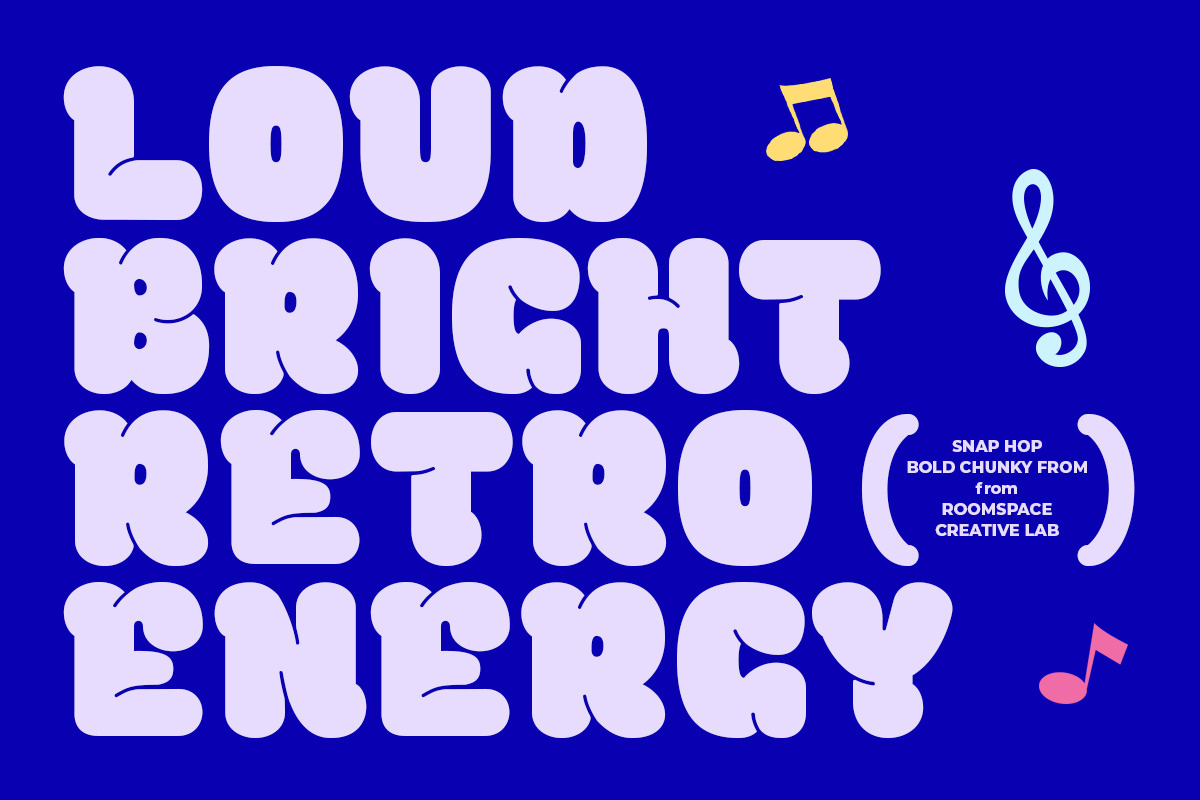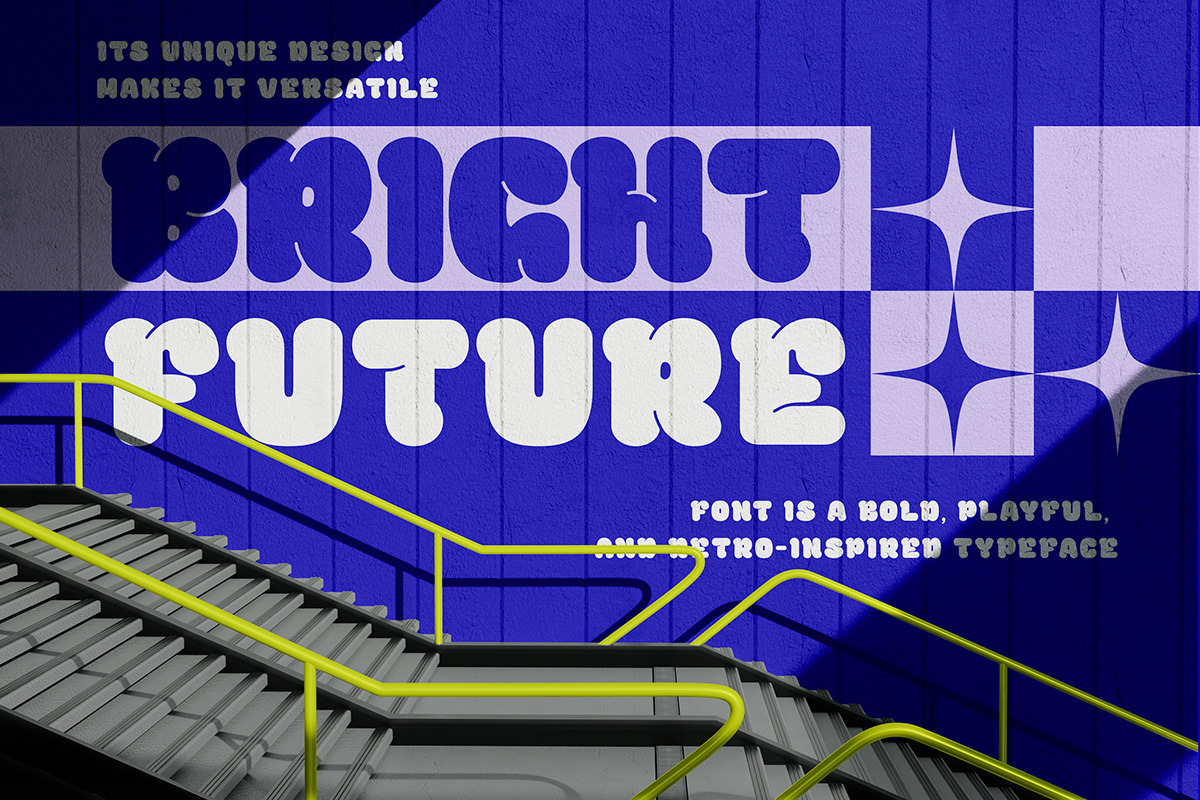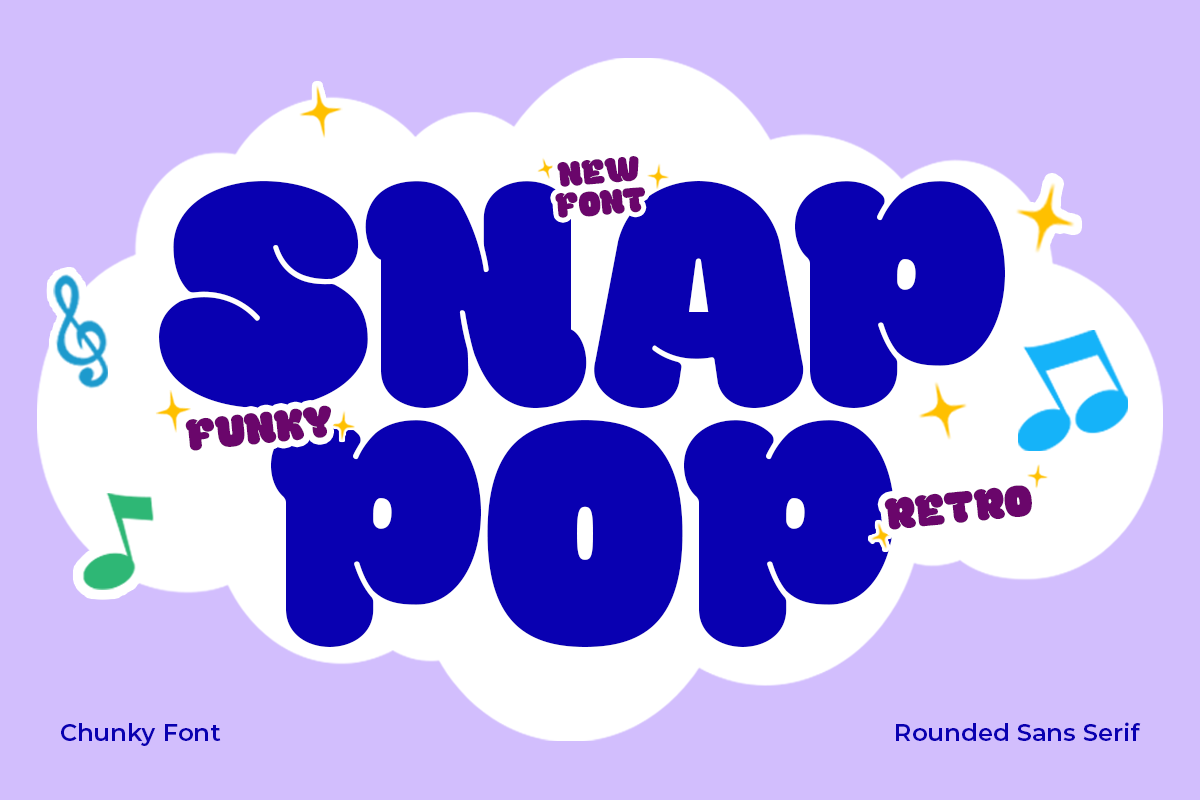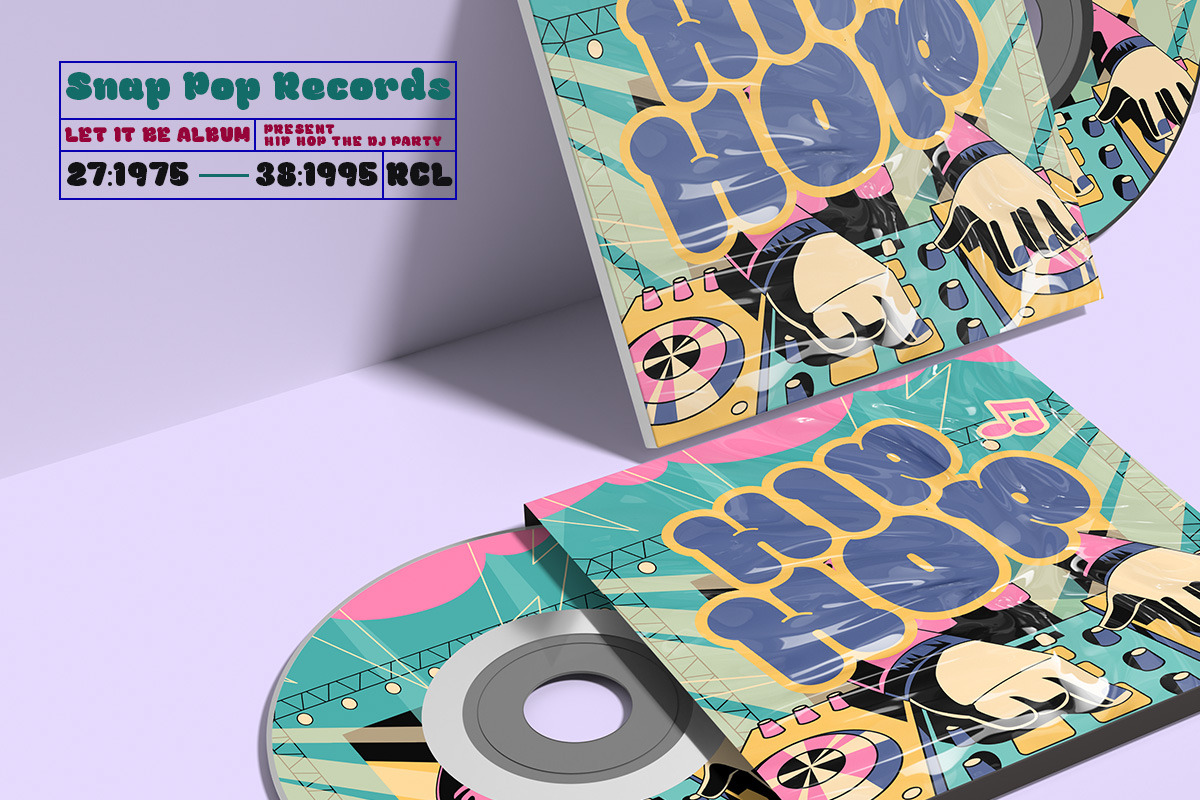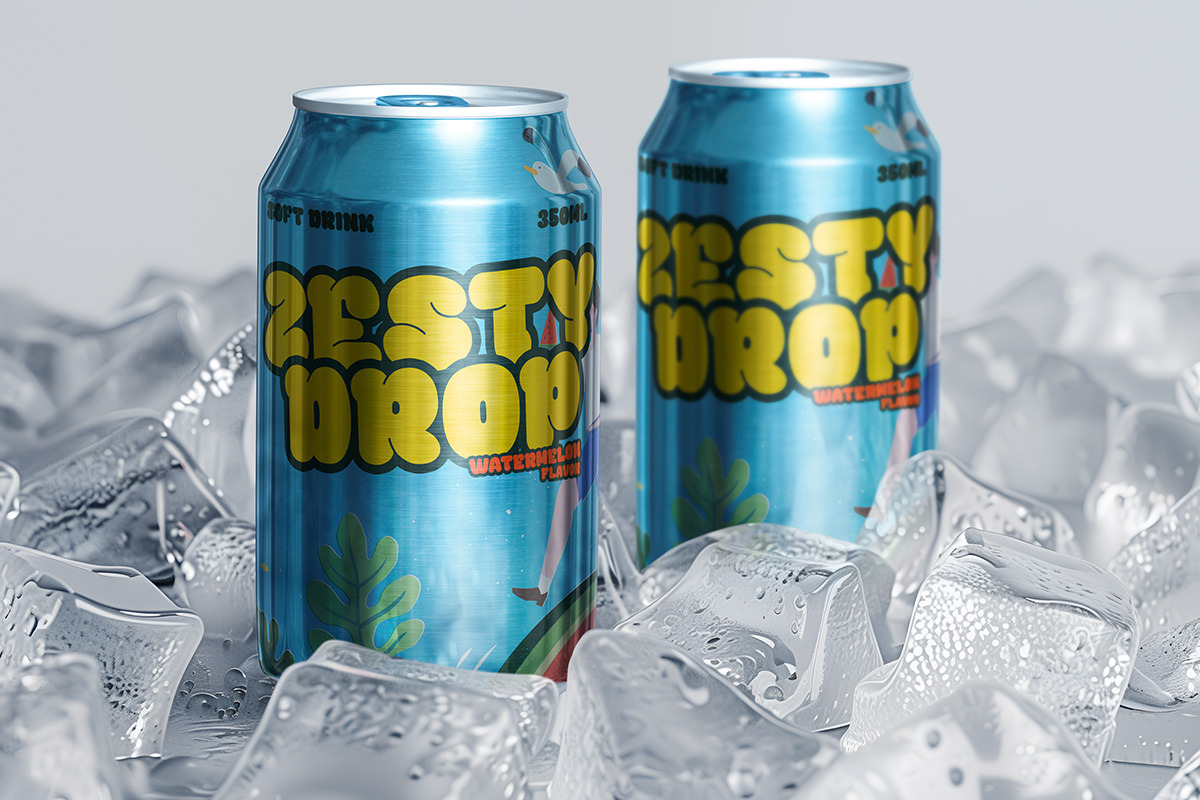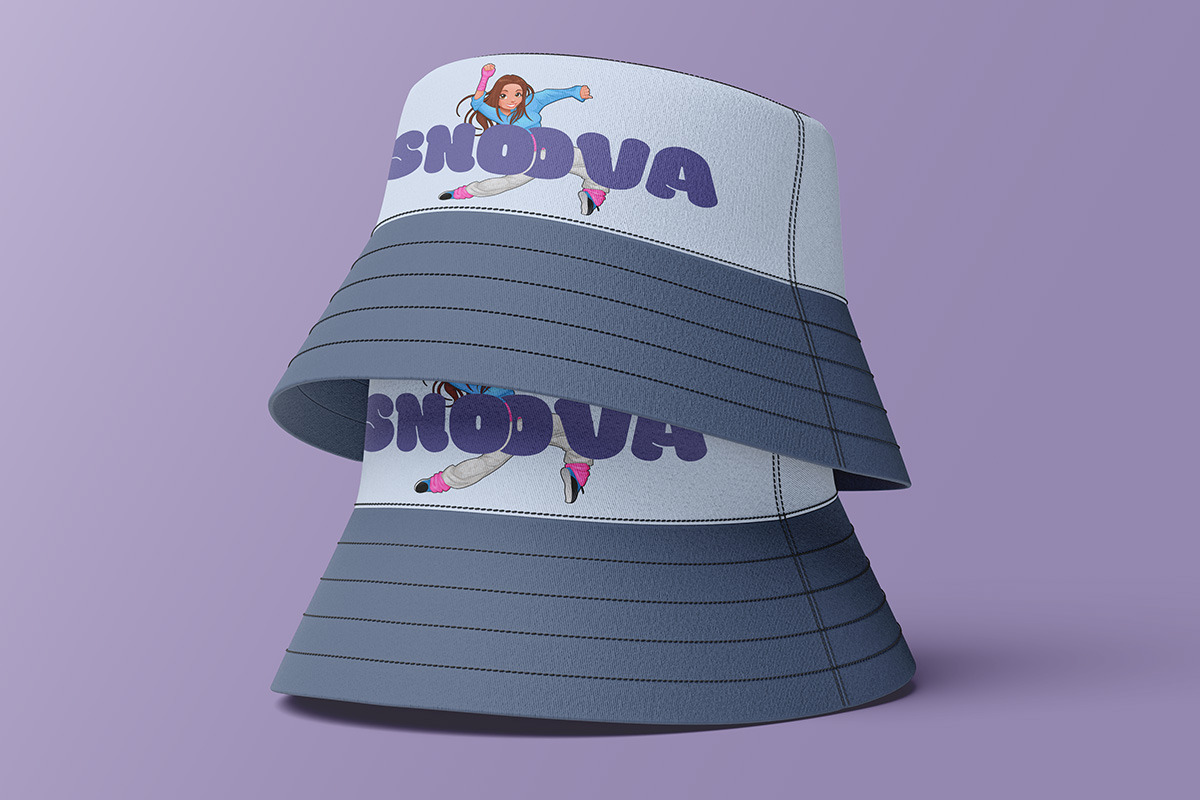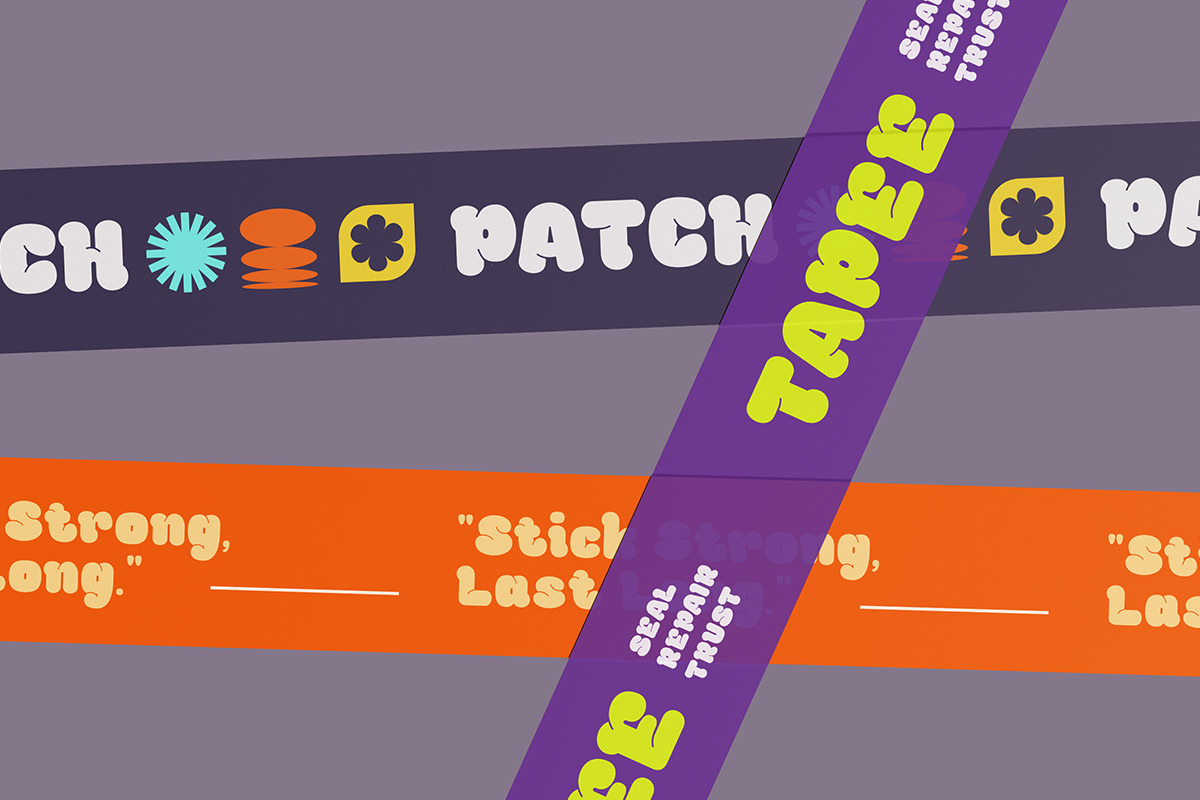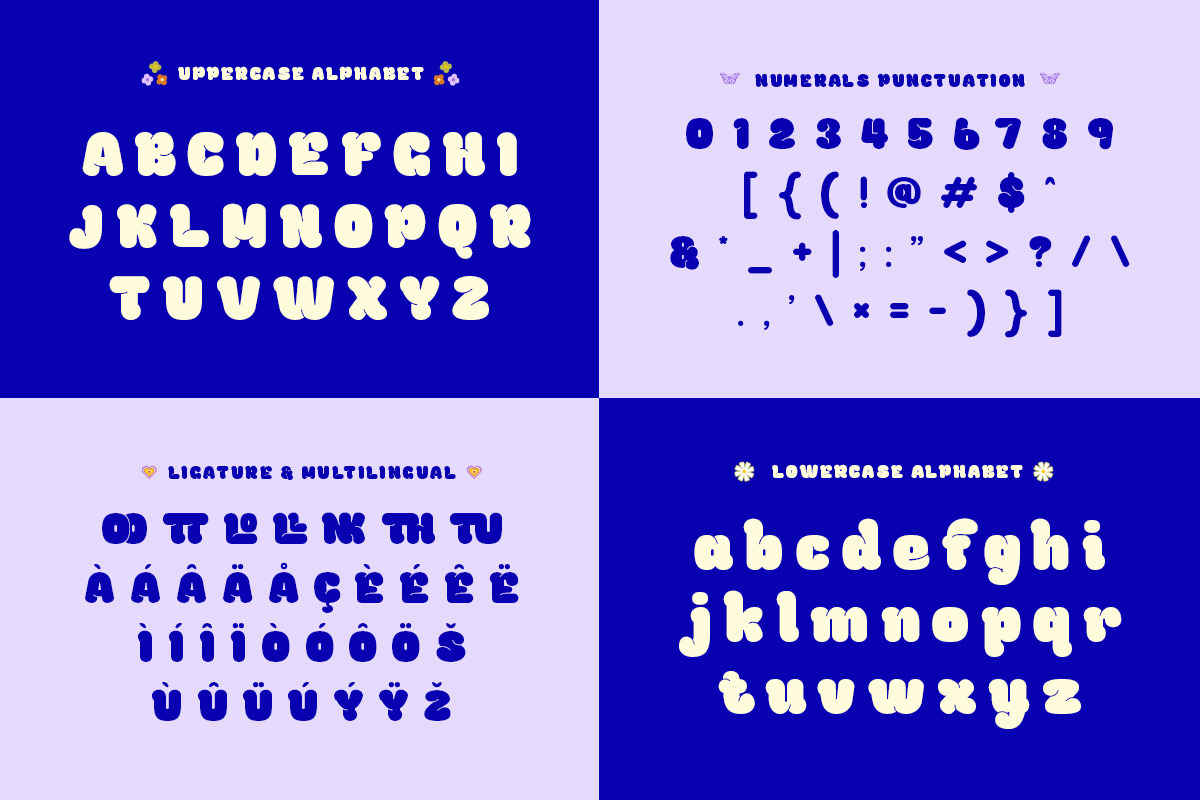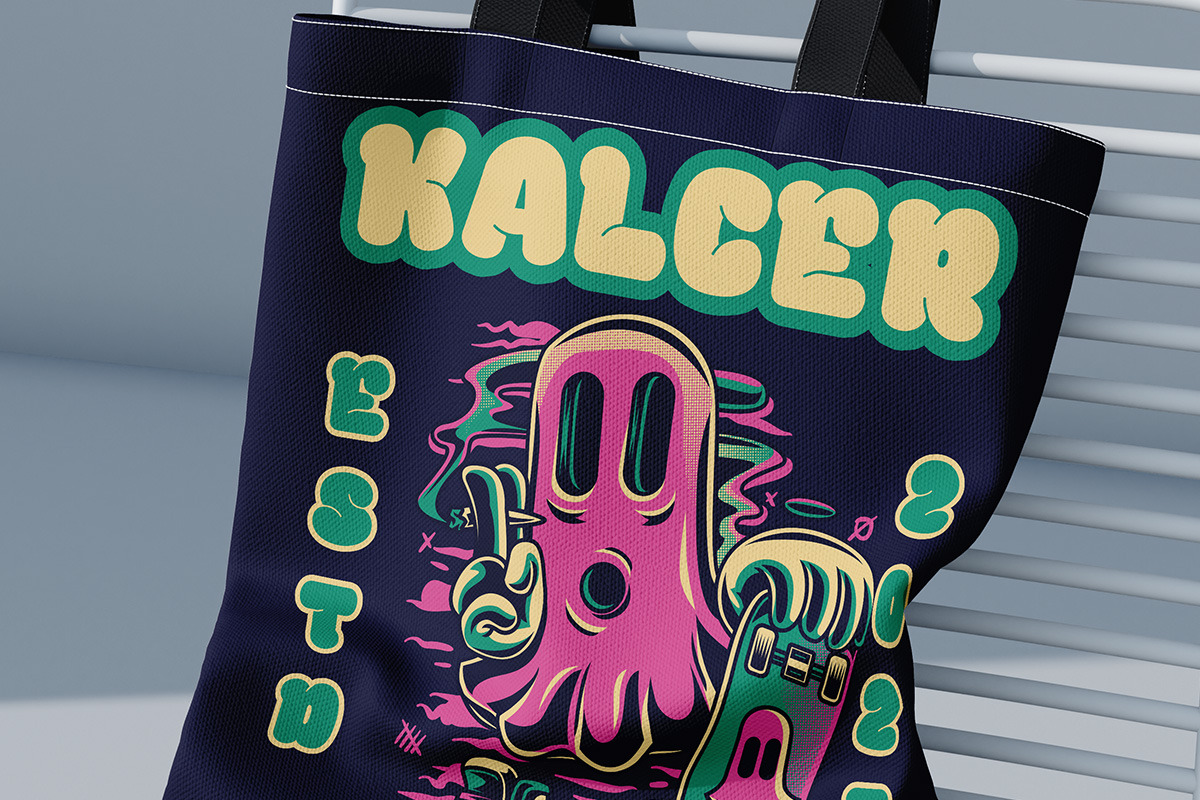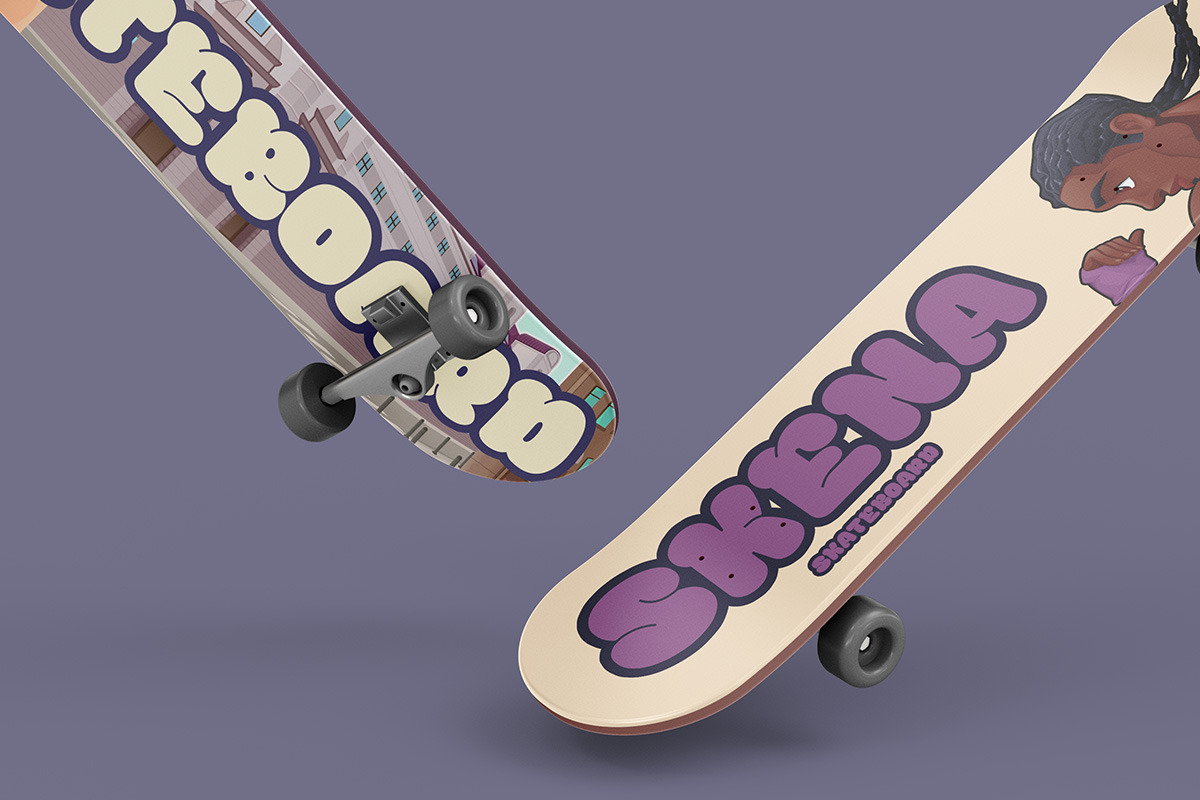
Snap Pop — Bubble Retro Chunky Font
Snap Pop — a chunky retro font full of personality! With thick curves and playful energy, this font was made to stand out in the most fun way possible.
Perfect for kid-friendly graphics, party invitations, YouTube thumbnails, or any design that calls for a joyful punch. It’s bold, bubbly, and just the right kind of funky.